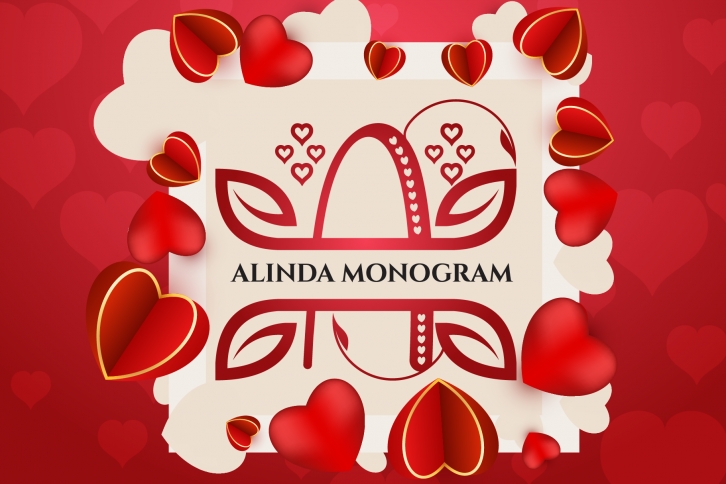
ALINDA MONOGRAM is a Elegant font. This font can be used for various purposes, including for invitations, logo, weddings, birthdays, fashion, products, feminine, beauty, salon, product packaging, quotes, product designs, crafters, labels, photography, watermarks, t-shirts, logos & branding. Everything can be accessed using software that supports Opentype, such as Adobe Indesign, Adobe CS Illustrator, Adobe Photoshop CC, and Corel Draw.